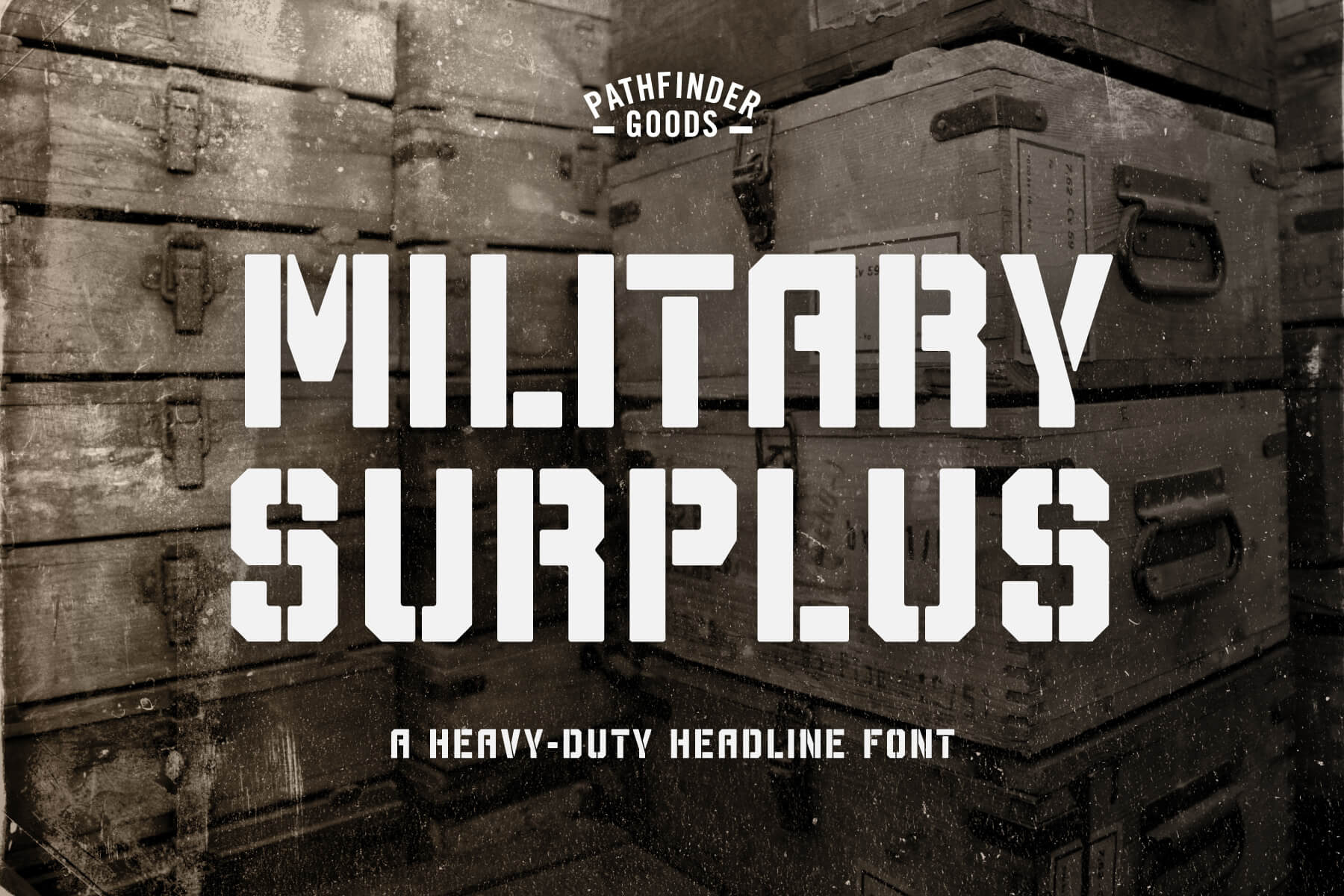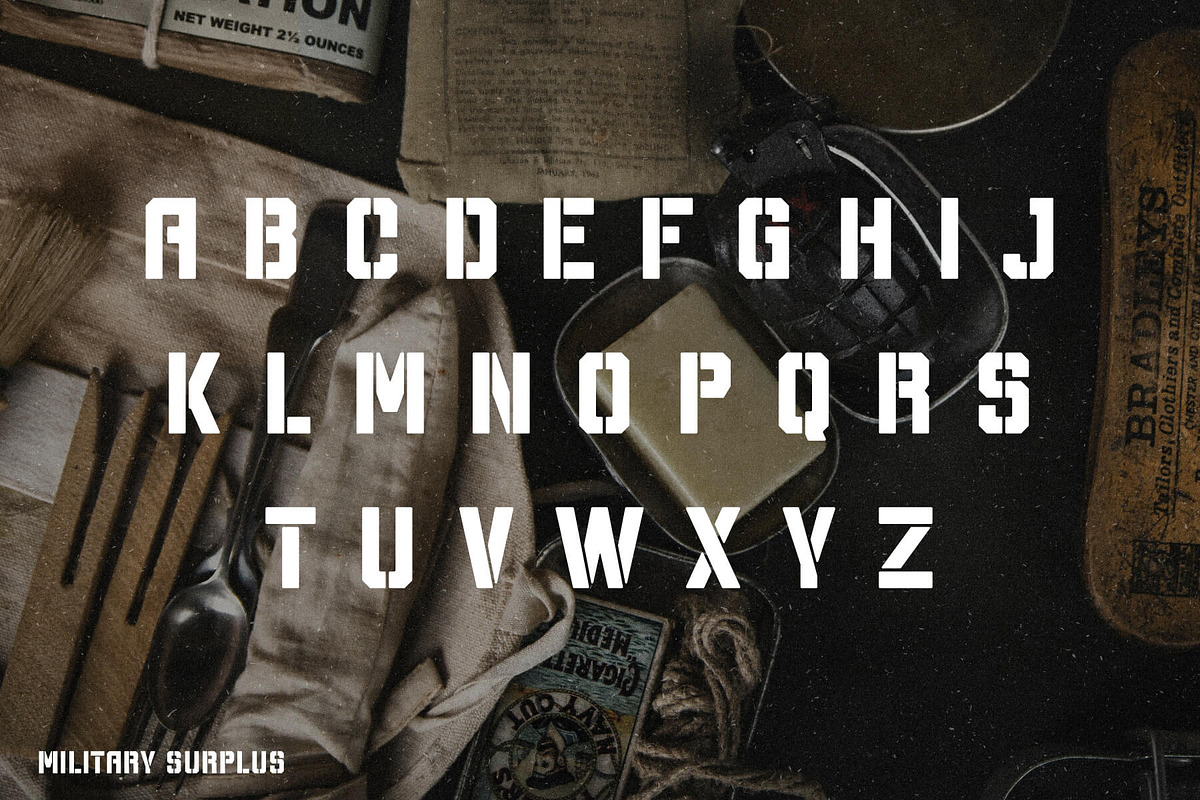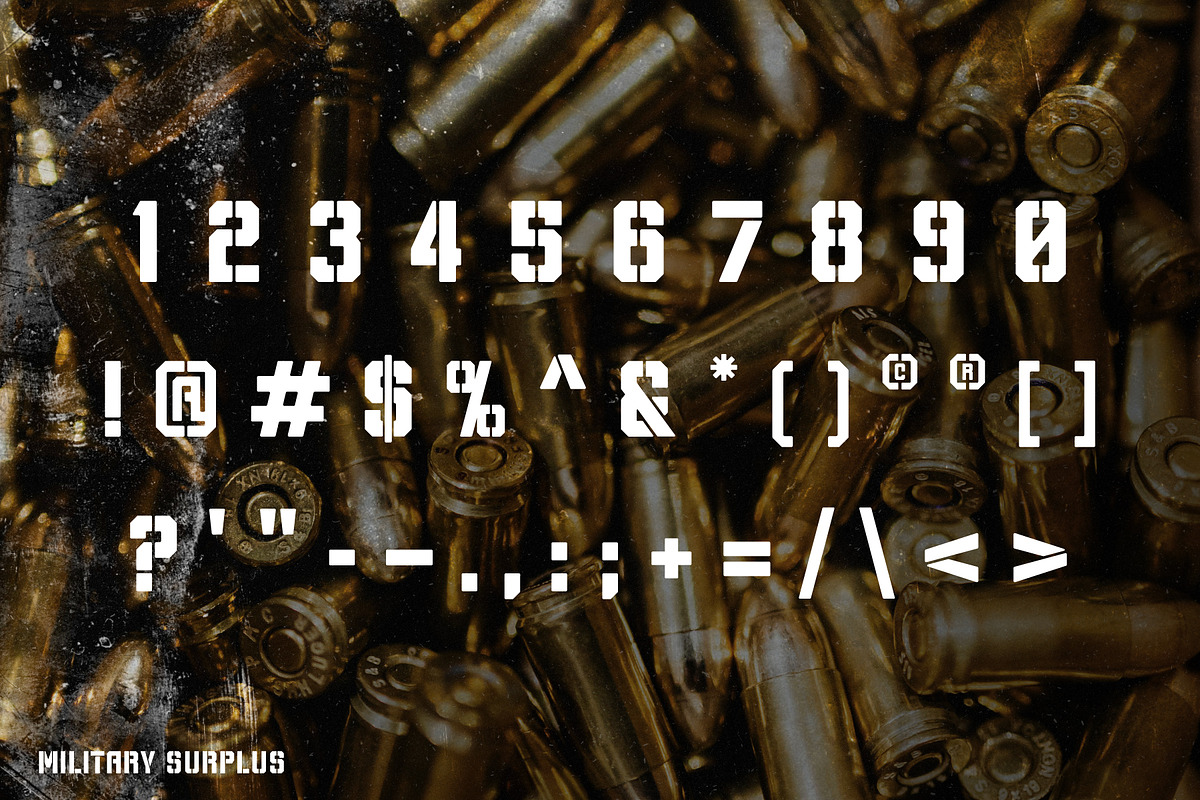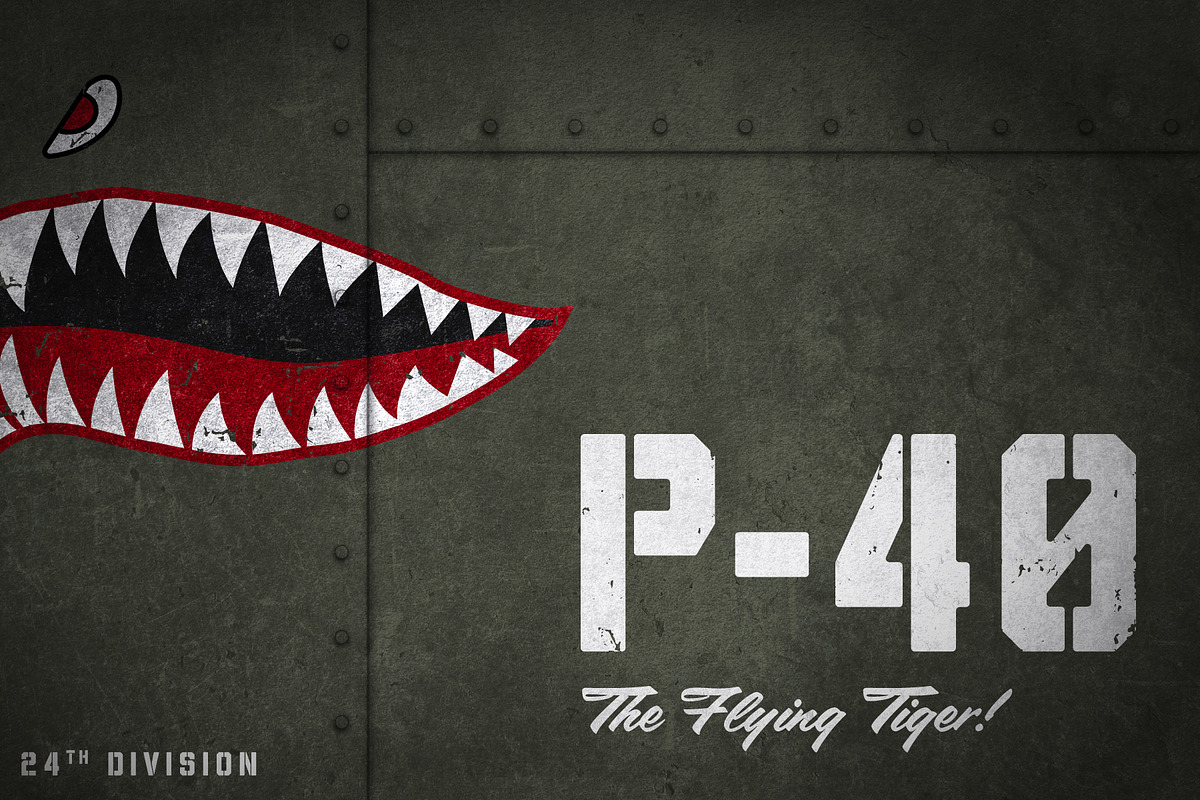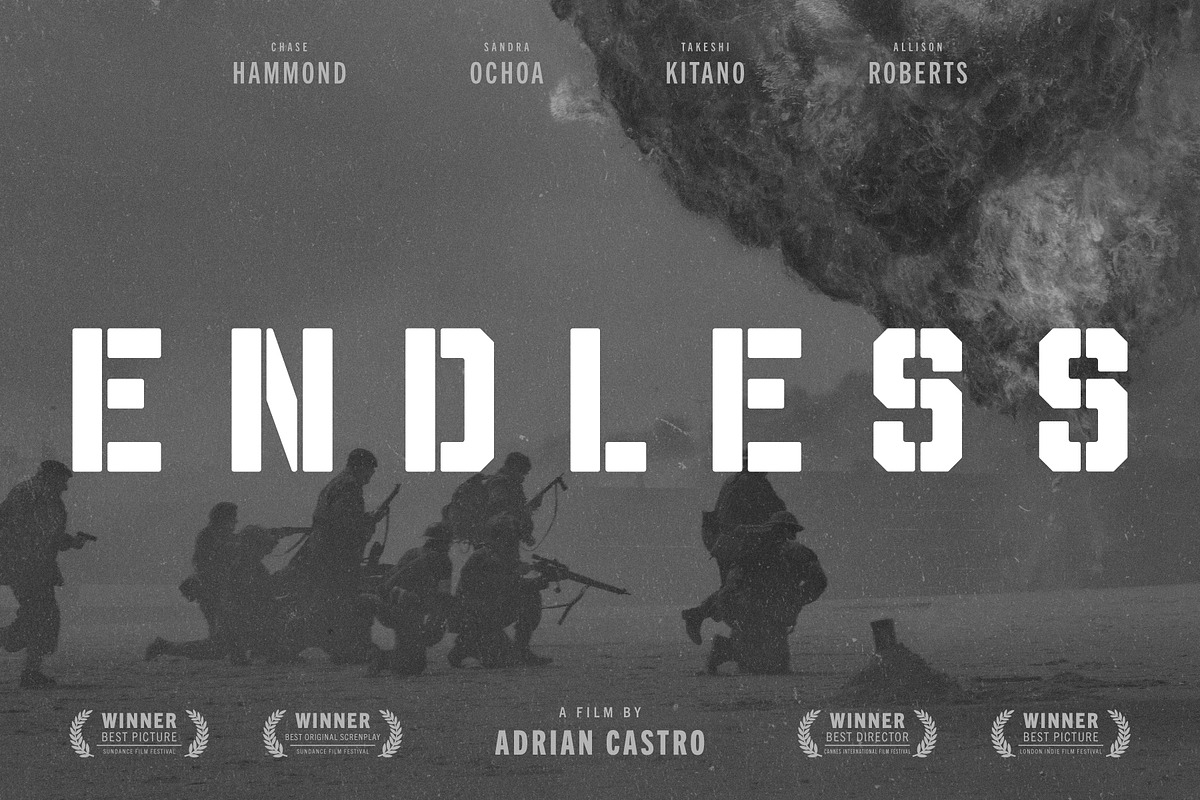
Military Surplus – Headline Font
Military Surplus – A Heavy Duty Headline font straight from the front lines which includes:
Uppercase letters
Glyphs
This bold stencil font is versatile and works well for military-themed designs, strong, warning-type labels, and more! When designing each letter, there was a focus on legibility and an attention to geometric detail.